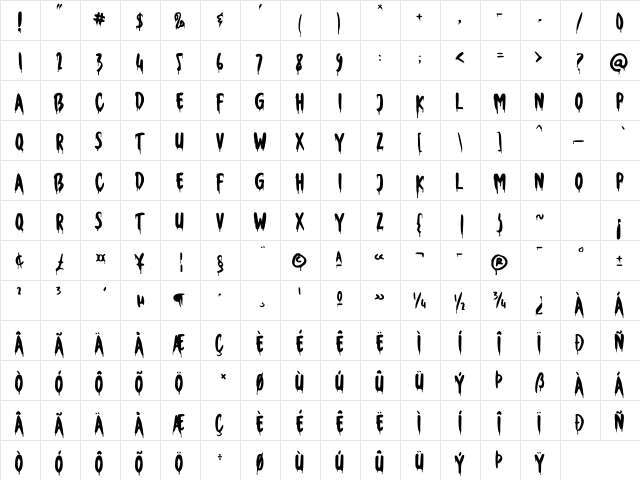
Wicked Tricker Regular
Design Context for Wicked Tricker Typeface
Wicked Tricker is a composed and adaptable typeface that performs quietly and consistently across a wide range of design contexts.
Pro Tip: Use Wicked Tricker in both headline and body roles to test its range before committing to a single application.